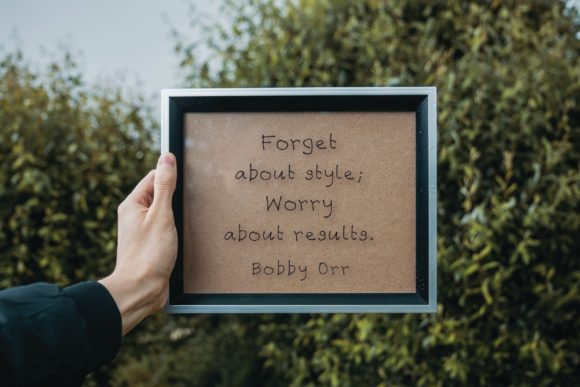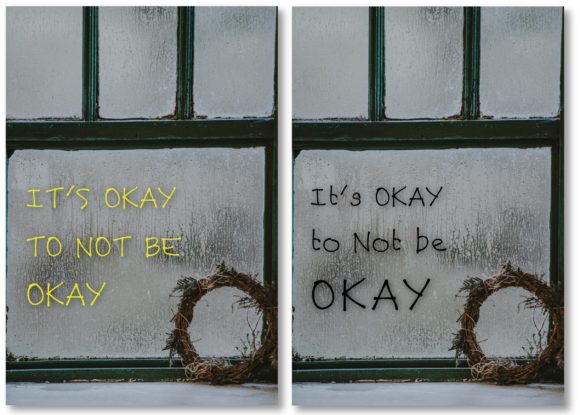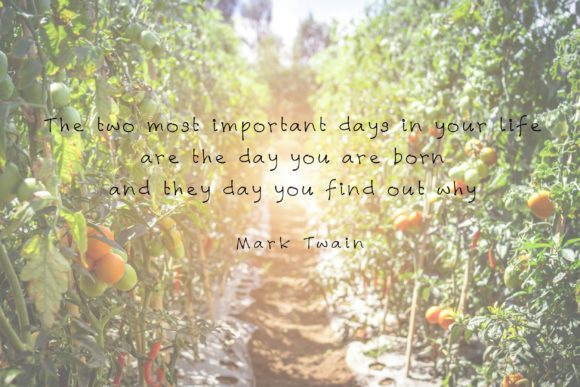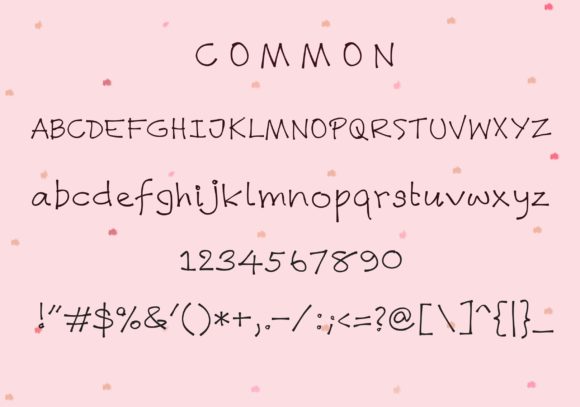
About Common Font
Common is a remarkable handwritten font that brings a unique and artistic touch to your designs. With its distinct and expressive style, this font adds a sense of authenticity and creativity to any project.
The charm of Common lies in its natural and organic strokes. Each letter is carefully crafted to reflect the imperfect beauty of handwriting, creating a genuine and personal feel. This makes Common a perfect choice for designs that aim to evoke a sense of warmth, approachability, and individuality.
By using Common, you can make your ideas come to life and create designs that resonate with your audience. Whether you’re working on branding materials, social media graphics, posters, or any other creative project, this font will add a touch of realism and creativity.
The versatility of Common allows it to be used in various design contexts. Its informal and friendly appearance makes it suitable for both casual and professional designs. It can be used for logos, headlines, product packaging, invitations, and more. The possibilities are endless.
With Common, you can capture the essence of handwritten text while maintaining legibility and clarity. Its balanced letterforms and thoughtful spacing ensure that your message is conveyed effectively, while still retaining a handcrafted and artistic look.
Embrace the charm and versatility of Common and explore its potential in your designs. Experiment with different sizes, weights, and letter combinations to create a truly unique and impactful result. Let Common be the bridge between your imagination and your visual creations.
In summary, Common is a spectacular handwritten font that adds a touch of authenticity and creativity to your designs. Its natural and organic style makes it perfect for a wide range of projects, allowing you to bring your ideas to life. Embrace the beauty of Common and unleash your creativity in creating spectacular designs that capture attention and leave a lasting impression.